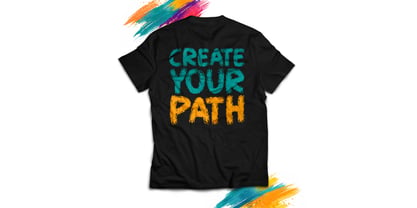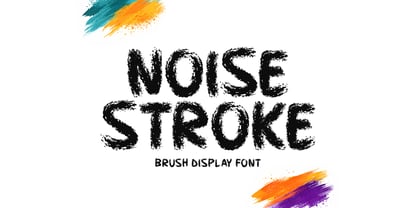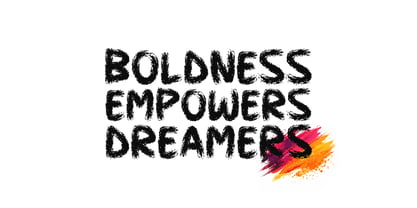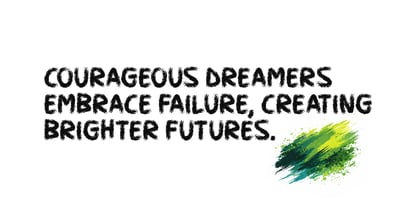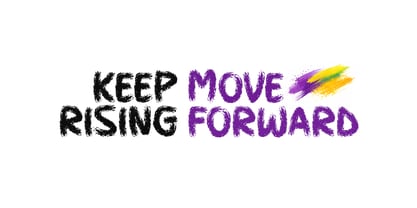
Noise Stroke
by Seemly Fonts
The Noise Stroke Font Family was designed by Md. Sohail Bhuiyan and published by Seemly Fonts. Noise Stroke contains 1 styles. More about this family
Noise Stroke is a bold brush display font with raw texture and expressive strokes. Its rough, hand-painted style adds strong character and powerful impact to headlines, posters, branding, and creative designs. Crafted with an organic, energetic feel, Noise Stroke captures the natural movement of real brush marks, giving every letter a dynamic and authentic look. Perfect for statement typography, apparel graphics, music covers, and social media visuals, it delivers a gritty yet modern aesthetic that makes every word stand out with confidence and attitude.
Designers: Md. Sohail Bhuiyan
Foundry: Seemly Fonts